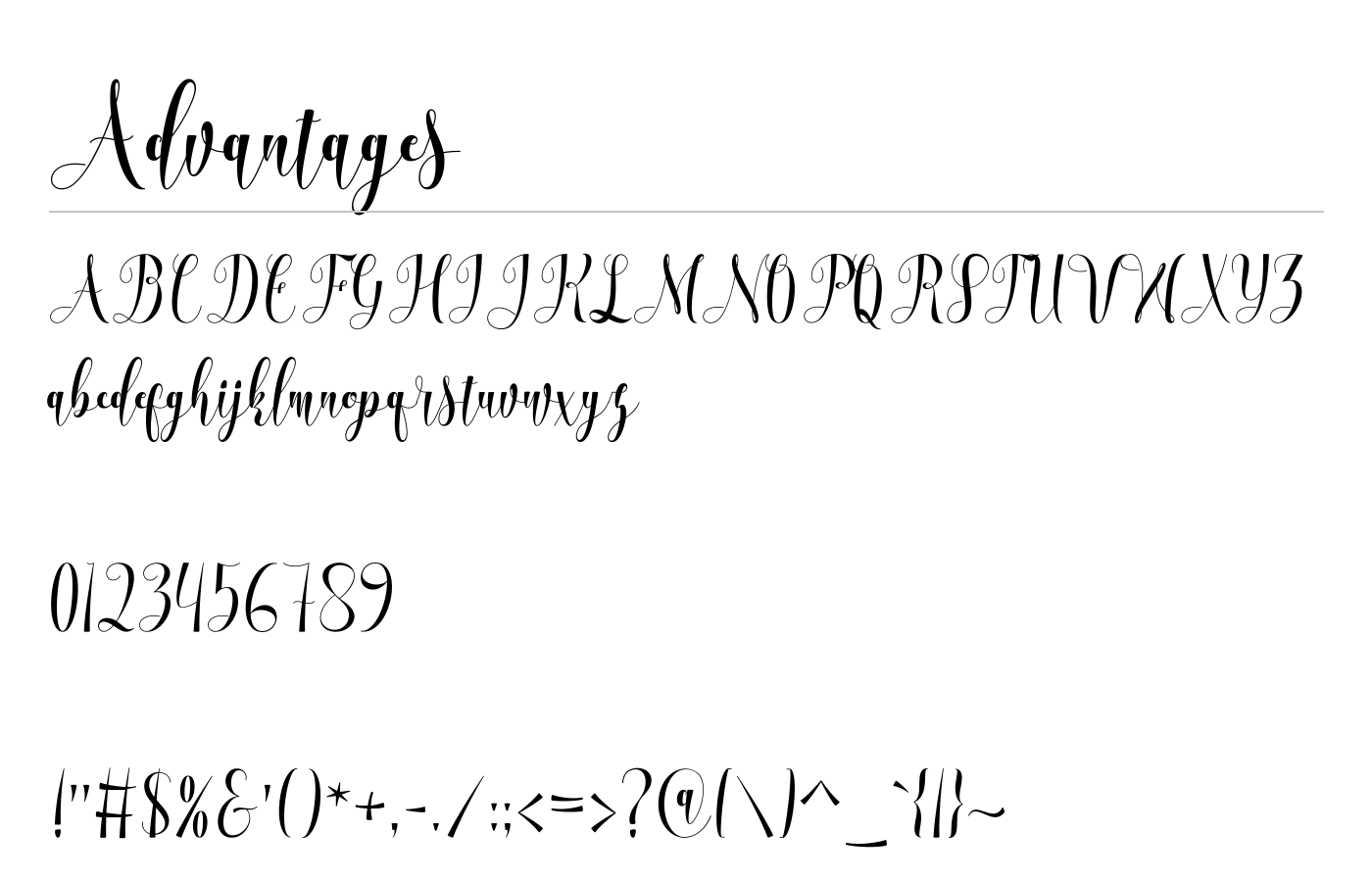
Advantages Font is an elegant and decorative script typeface with a modern calligraphic style, featuring high contrast between thick and thin strokes and graceful, swirling letterforms. Its flowing, stylish characters make it ideal for sophisticated branding, invitations, and headlines that seek a touch of luxury and artistic flair. This font works best in design projects where a refined, feminine, and expressive feel is desired.
Advantages Font
About Advantages Font
| Font family | Advantages Font |